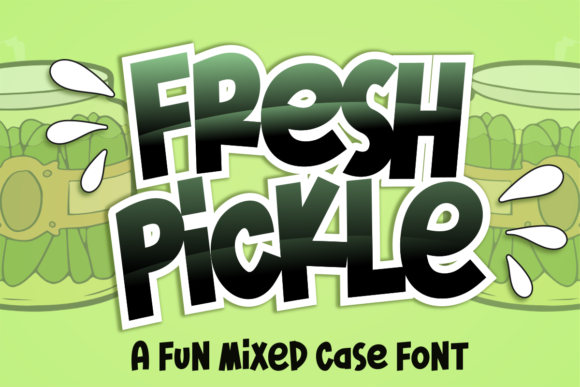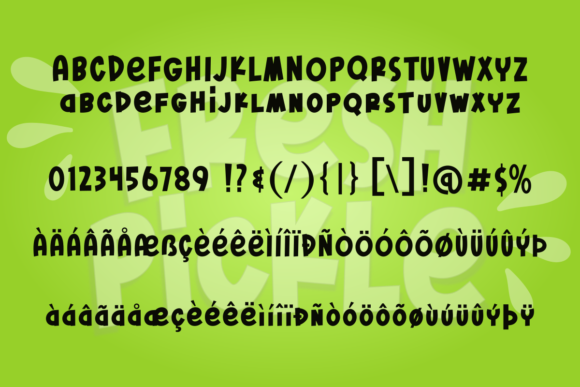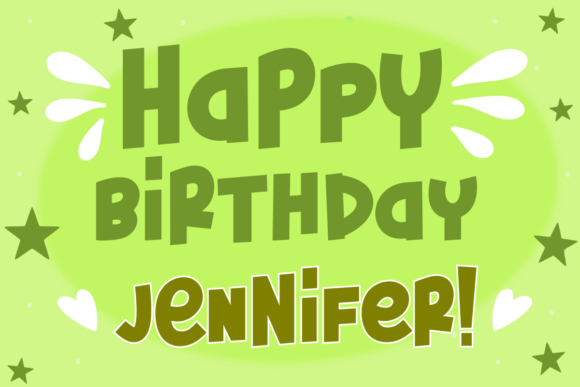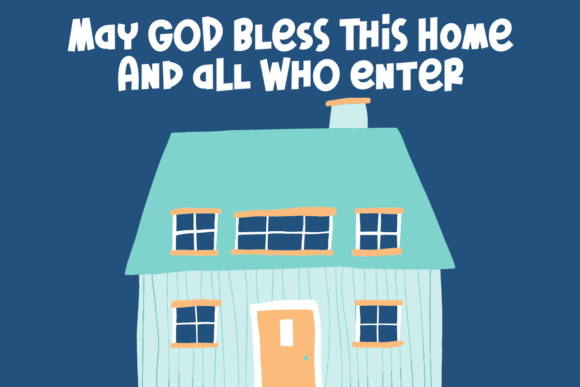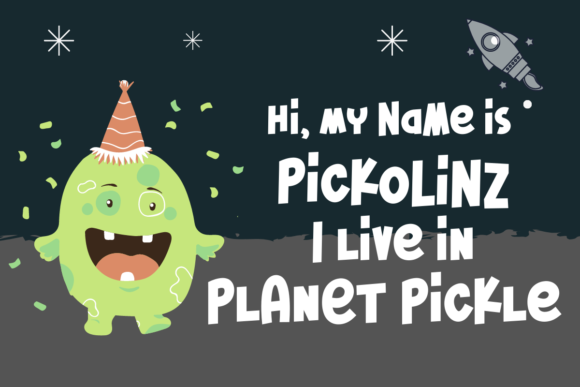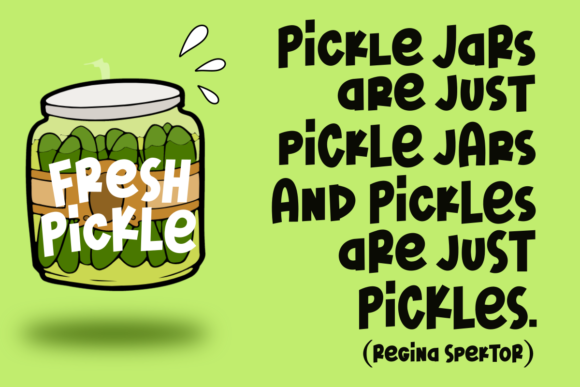
Fresh Pickle is a fun, chunky lettered and cartoon like display font. Playful and unique, this font will brighten up each of your designs!
Fresh Pickle Font